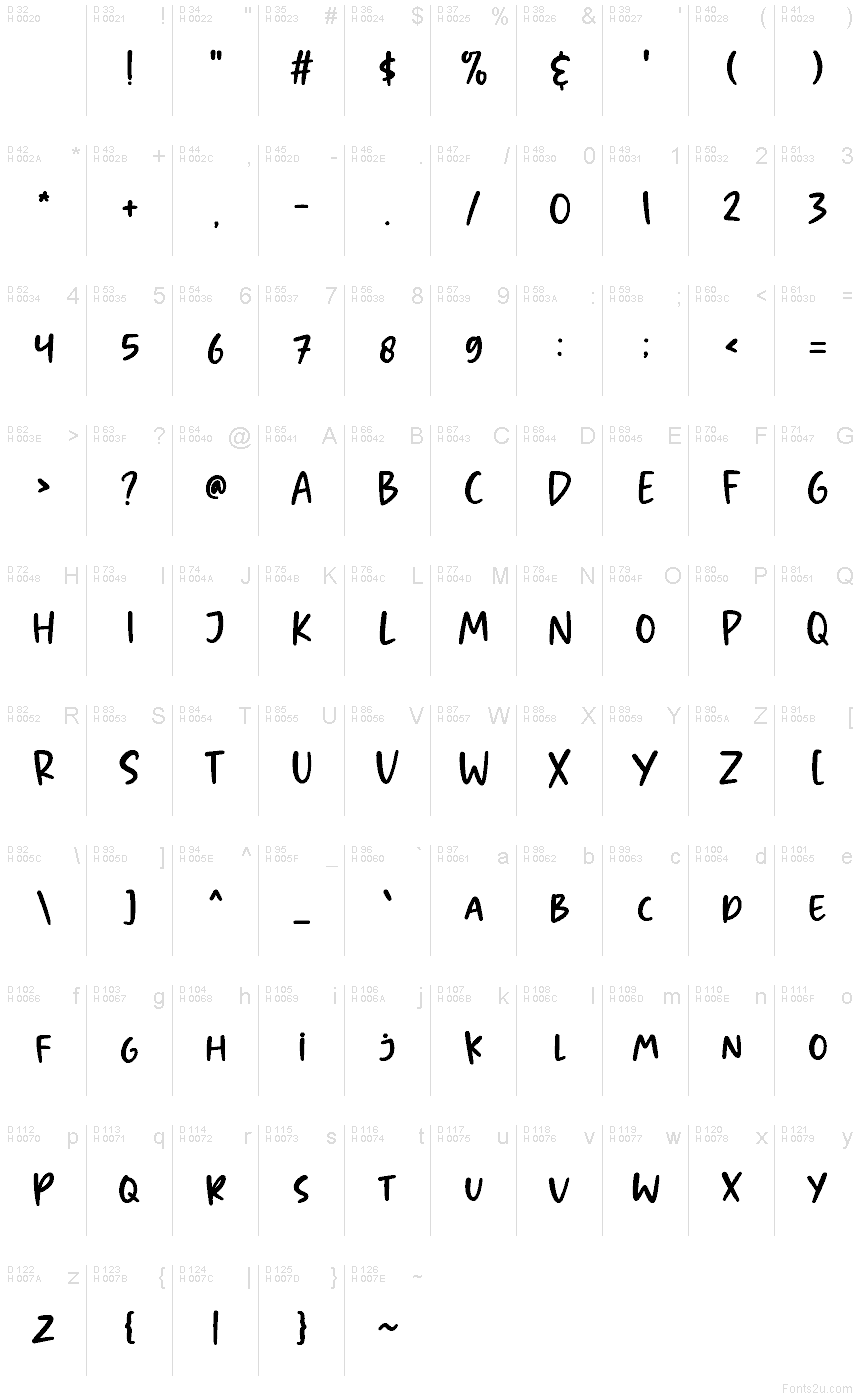
Deeptalk
Deeptalk font by Graphix Line Studio is a free handwritten display font. It hits that rare sweet spot between lively, human brushwork and clean readability: tall letterforms, steady vertical rhythm, and softly rounded ends give it a bold, inky voice without the mess. The strokes feel marker-fresh—slightly dry at the edges—so headlines pop while still looking approachable and modern.
This free font shines on quote graphics, YouTube thumbnails, snack or coffee packaging, event flyers, T‑shirts, stickers, and café menus. Using Deeptalk brings instant personality to short, punchy lines and brand tags that need warmth with clarity. Pair it with a neat sans serif for body copy, and let Deeptalk lead at larger sizes for maximum impact.